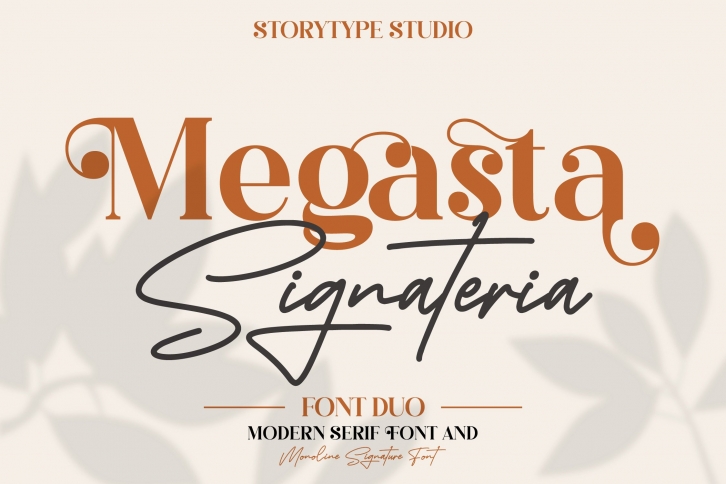
Megasta Signateria consists of two fonts designed to complement each other perfectly. Together or apart, these fonts are ideal for adding a chic and cheery touch to your crafts. This font is PUA encoded which means you can access all glyphs and swashes with ease!